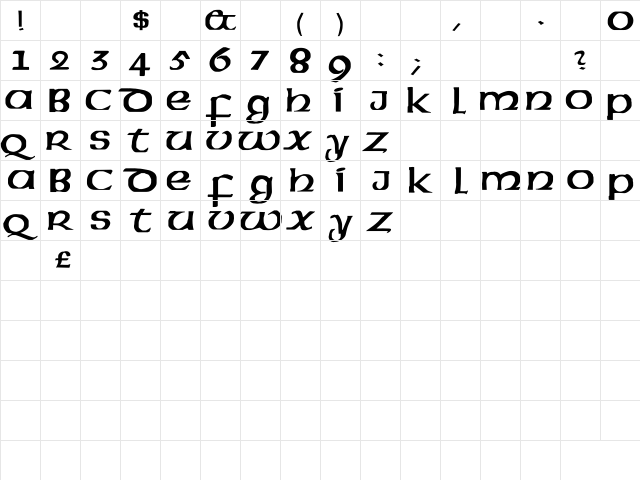
Manual Regular Regular
Manual Regular is a composed and adaptable typeface that performs quietly and consistently across a wide range of design contexts.